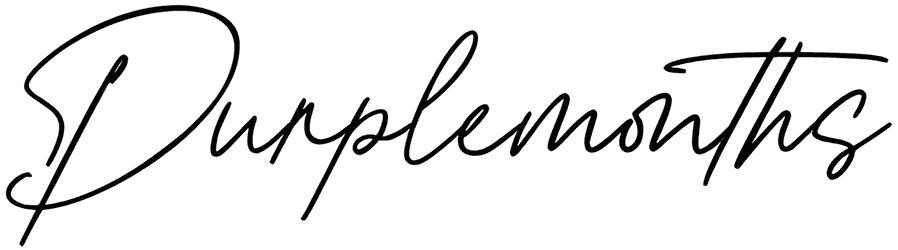
Purplemonths Font
Purplemonths is a flowing handwritten font that we’d like to introduce to you. A captivating appearance, like Purplemonths, may increase viewer demand!
Even though this signature font lacks numerals and punctuation, considering the challenge to read, it has a cursive style with connected design components that allow you to create more unique combinations. It’s very useful for watermarks, invitations, and posters. Download now and see how this script font grabs the attention of your audience.